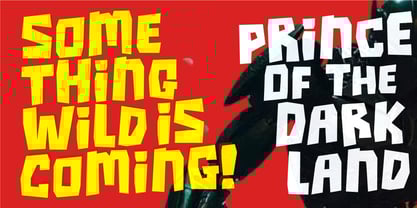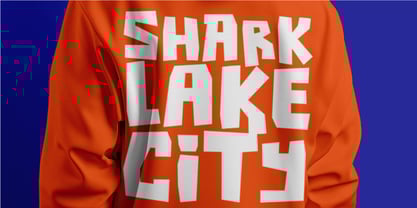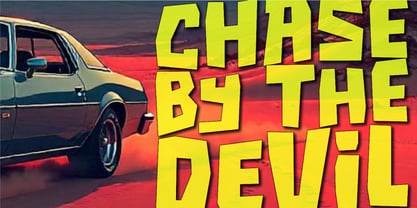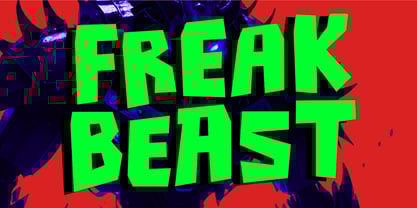
Freak Beast
Freak Beast is a bold, loud, and quirky cartoon font packed with monstrous personality. This handcrafted display typeface combines playful chaos with fierce energy, making it the perfect choice for sports posters, movie titles, product branding, and anything that needs a freaky twist.
With its jagged outlines, bouncy shapes, and expressive letterforms, Freak Beast is made to grab attention. Whether you're designing for a kids’ horror book, a spooky team mascot, a thrilling action film, or bold snack packaging, this font delivers maximum impact with a fun, edgy attitude.